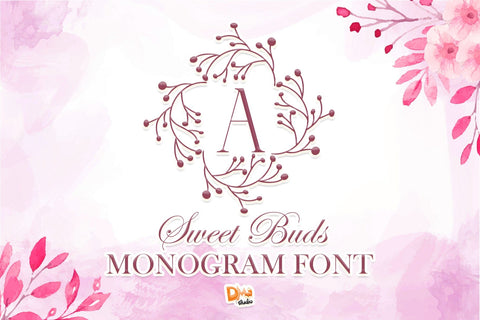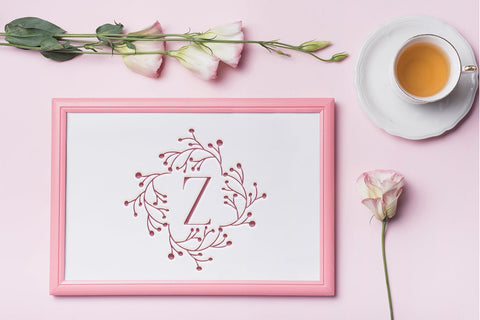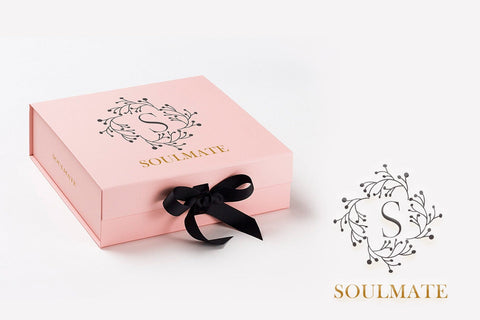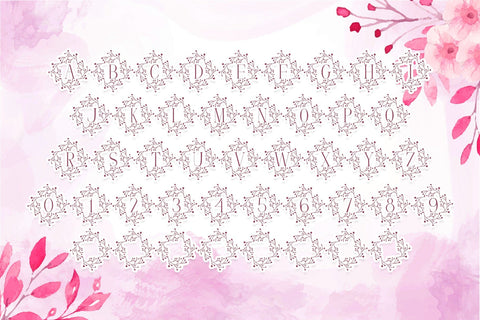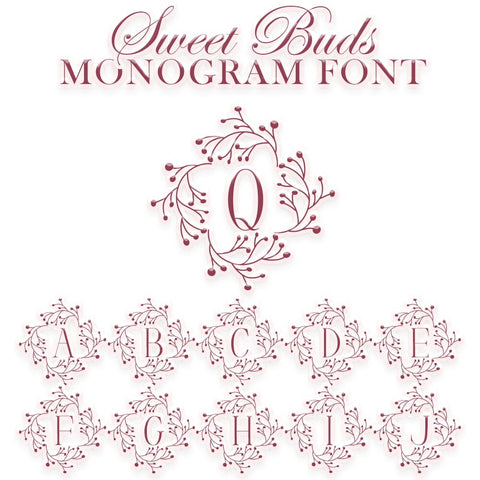
Sweet Buds Monogram
Sweet Buds Monogram – Elegant & Floral Monogram Font
Sweet Buds Monogram is a beautifully designed typeface featuring delicate floral bud accents, adding a touch of charm and sophistication to any design. This ornamental font is perfect for wedding invitations, luxury branding, personalized stationery, boutique packaging, and artistic projects. Its graceful and refined aesthetic brings an elegant, nature-inspired feel to your creations.
✔ Intricate Floral Bud Design – Each letter is adorned with delicate, hand-drawn floral buds for a soft and elegant look.
✔ Ornamental & Timeless Aesthetic – A blend of sophistication and natural beauty.
✔ Complete Character Set – Includes uppercase, lowercase, numbers, punctuation, and multilingual support.